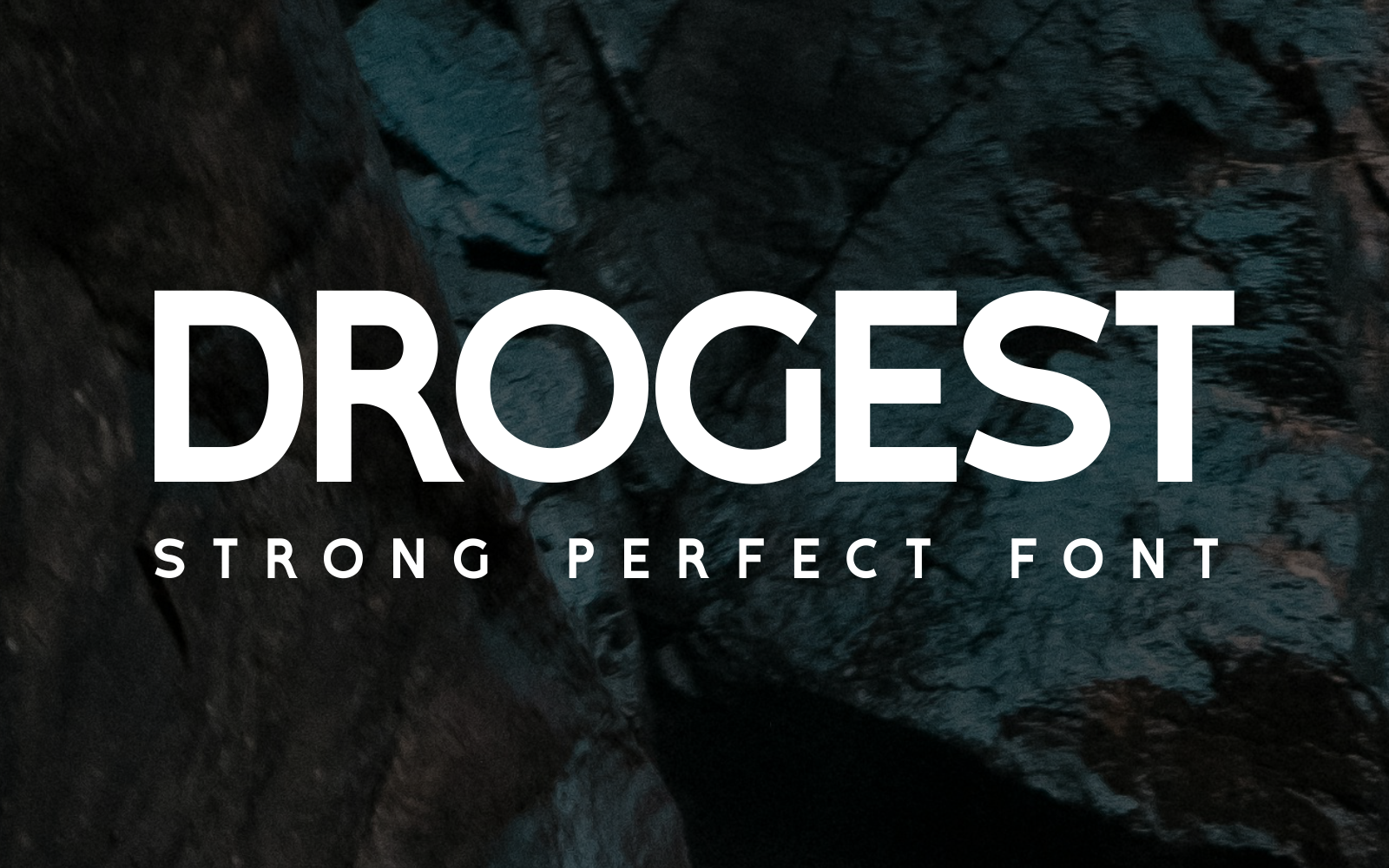
Drogest – Bold Display Font for Branding & Titles
Drogest is a bold and strong display font designed to make a powerful impact. Perfect for branding, titles, movie posters, and visual identities, it brings confidence and strength to any design project. Ideal for logos, headlines, and bold statements.
Drogest is a bold, strong display font crafted to leave a lasting impression. Perfect for branding, titles, movie posters, and visual identities, it adds confidence and power to any design. Whether you're creating a logo, headline, or bold statement, Drogest delivers a commanding presence. Its clean lines and assertive style make it ideal for projects that demand attention. Use Drogest to give your work a sharp, professional edge and ensure your message stands out.